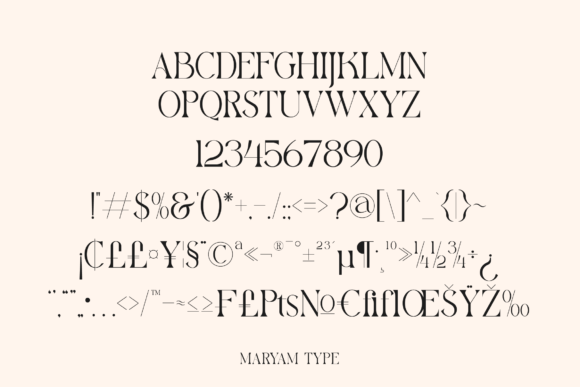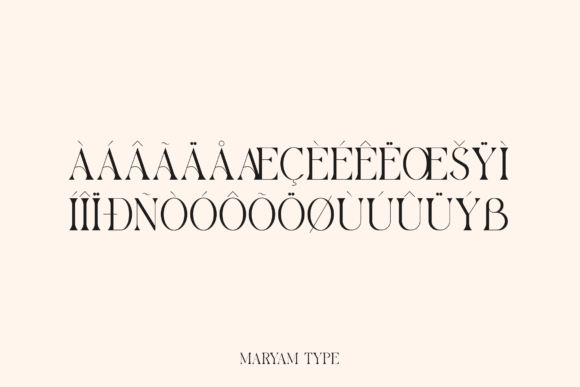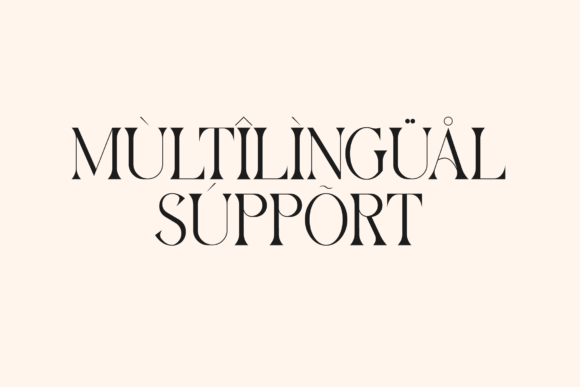
Introduction to Gaistro Font
Gaistro is a stylish serif font with a modern style and unique look.
This typeface is perfect for elegant & luxurious logos, book or movie title designs, fashion brands, magazines, clothing, fonts, quotes, and more .
Gaistro Font offers exceptional quality and versatility, making it a valuable addition to your design toolkit. Whether you’re creating for personal projects or commercial use, Gaistro Font delivers professional results.